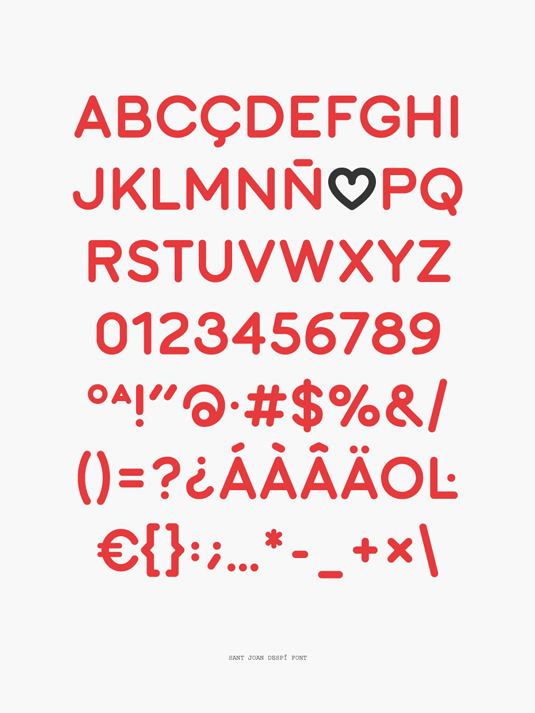
Font of the day: Sant Joan Despí
Love is in the air. Celebrate this Valentine's Day with our font of the day, Sant Joan Despí from Forma & Co, which is free to download in exchange for a tweet!
Sant Joan Despí from Forma & Co
Celebrate the day of love with this gorgeous font Sant Joan Despí from Barcelona-based design studio Forma & Co. The team comment: "The Garcia agency commissioned us to design an alphabet for 'Nadal amb cor' City Council campaign Sant Joan Despí. A font with a special feature, instead of an O it has a heart."